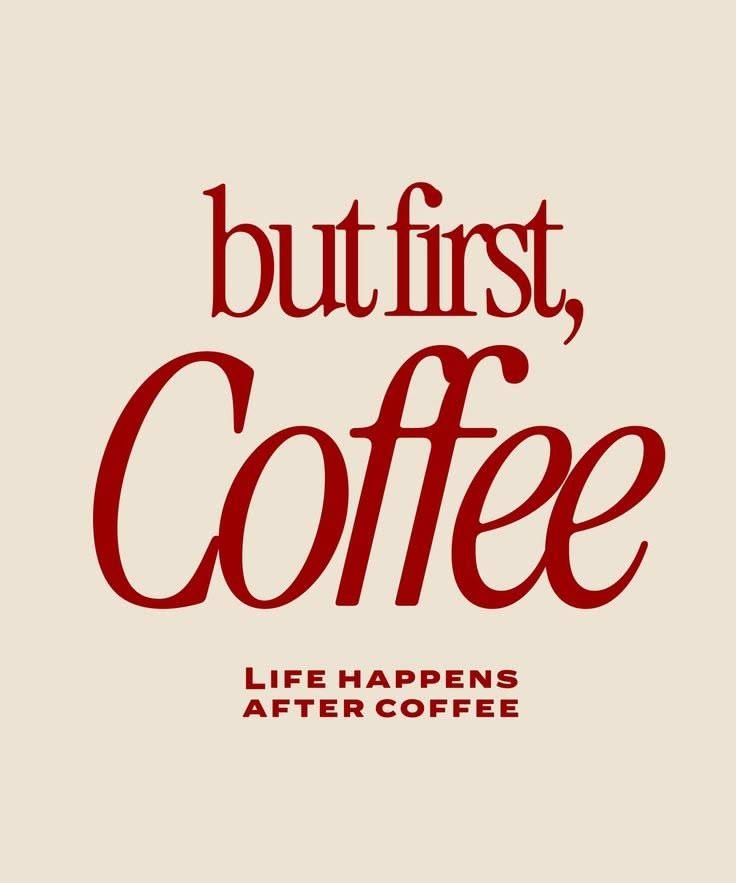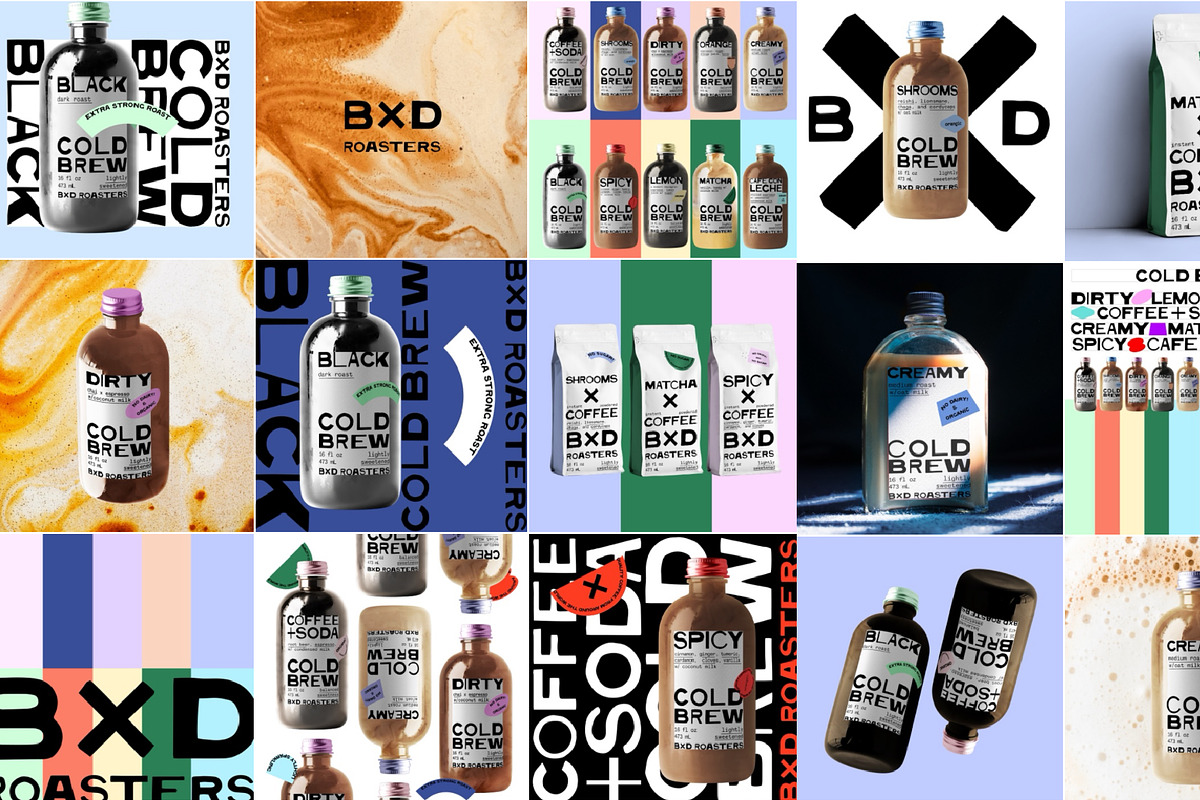
20 Best Coffee Font for Café Logos, Packaging & Menus
Modern coffee-themed fonts are combining design trends with the casual look of coffee shops and cafes to recreate that retro hipster vibe for logos, labels, posters, and more.
A coffee font is a typeface chosen to strengthen coffee branding across café logos, menus, signage, and packaging, helping communicate the warmth, quality, and personality people associate with coffee culture. Whether you’re opening a neighbourhood café, launching a specialty coffee roastery, or designing packaging for an artisan blend, choosing the right font can shape how people experience your brand before they’ve even taken their first sip.
Typography has always played a starring role in coffee culture. From hand-painted chalkboard menus and vintage espresso signs to modern minimalist cafés, the right typeface helps create an atmosphere that’s warm, welcoming, and memorable. A bold display font can stop customers in their tracks, while a handcrafted script can make a coffee bag feel small-batch and thoughtfully made.
This guide is for café owners, coffee roasters, package designers, and branding professionals who want a type choice that fits their brand story. Inside, you’ll see why typography matters in coffee branding, explore 20 coffee fonts with distinct styles and best-fit uses, and get practical direction for building a cohesive, memorable café brand.
Why Typography Matters in Coffee Shops, Branding and Hipster Culture
Coffee is about more than what’s in the cup, it’s about the experience. The atmosphere of a café, the look of the packaging, and the personality of the brand all work together to tell a story. Typography is one of the simplest ways to communicate that story at a glance.
Think about some of your favorite coffee brands. Chances are, their logo, signage, or packaging instantly conveys whether they’re a cozy neighborhood café, a premium single-origin roaster, or a fun, modern coffee bar. Fonts help establish those first impressions long before customers read a menu or order a drink.
Vintage-inspired lettering often evokes craftsmanship and tradition, and this retro visual language became especially popular in the early 2000s as part of hipster culture, making it a natural choice for artisan roasters and independent coffee shops. That appeal also reflects hipster style, which often romanticizes outdated technology and retro styles, while clean sans serifs can create a fresh, contemporary feel, and expressive scripts bring warmth and personality to packaging, loyalty cards, and café branding.
Our Favorite Retro Style Coffee Fonts
Whether your style leans vintage, minimalist, rustic, or contemporary, the fonts below offer plenty of inspiration for creating memorable café branding, eye-catching packaging, and logos that feel as inviting as a freshly brewed cup of coffee.
DRIPHAUS
If you’re building a coffee brand from the ground up, DRIPHAUS offers much more than a typeface. Combining bold vintage lettering with ready-to-use label elements, it suits brands that want to describe a coffee scene with a strong retro identity, making coffee bags, packaging, product labels, and café branding feel effortless while delivering an authentic specialty coffee aesthetic.
Fordough Haus
Soft serifs are becoming a favourite for modern food and beverage brands, and Fordough Haus shows exactly why. Its variable design blends classic elegance with gentle curves, making it a sophisticated choice for premium cafés, bakeries, restaurant branding, packaging, and editorial design.
Carla Sans Elegant Typeface
Carla Sans proves that minimalism doesn’t have to feel cold. Its refined letterforms and balanced proportions create a polished look that’s ideal for café menus, websites, loyalty cards, and contemporary coffee brands looking for understated elegance.
Brisca
Brisca brings together geometric precision and subtle warmth for a versatile sans serif that works across everything from logo design to packaging and social media. If your café’s style leans clean, modern, and Scandinavian-inspired, this typeface fits right in.
The Perfect Match
Creating cohesive café branding becomes much easier with The Perfect Match. Pairing beautifully crafted typography with hand-drawn illustrations and decorative extras, this collection helps you design everything from coffee packaging and menus to merchandise and Instagram graphics with a consistent handmade feel, with the extra illustrations useful, for example, when building a handmade café identity across multiple touchpoints.
CARVES
CARVES makes an instant impression with bold, sculptural letterforms that command attention without overwhelming a design. It’s particularly effective for storefront signage, coffee packaging, posters, and branding that wants to feel contemporary with just a hint of retro influence, making it a strong fit for brands that want to feel cool without looking too mainstream.